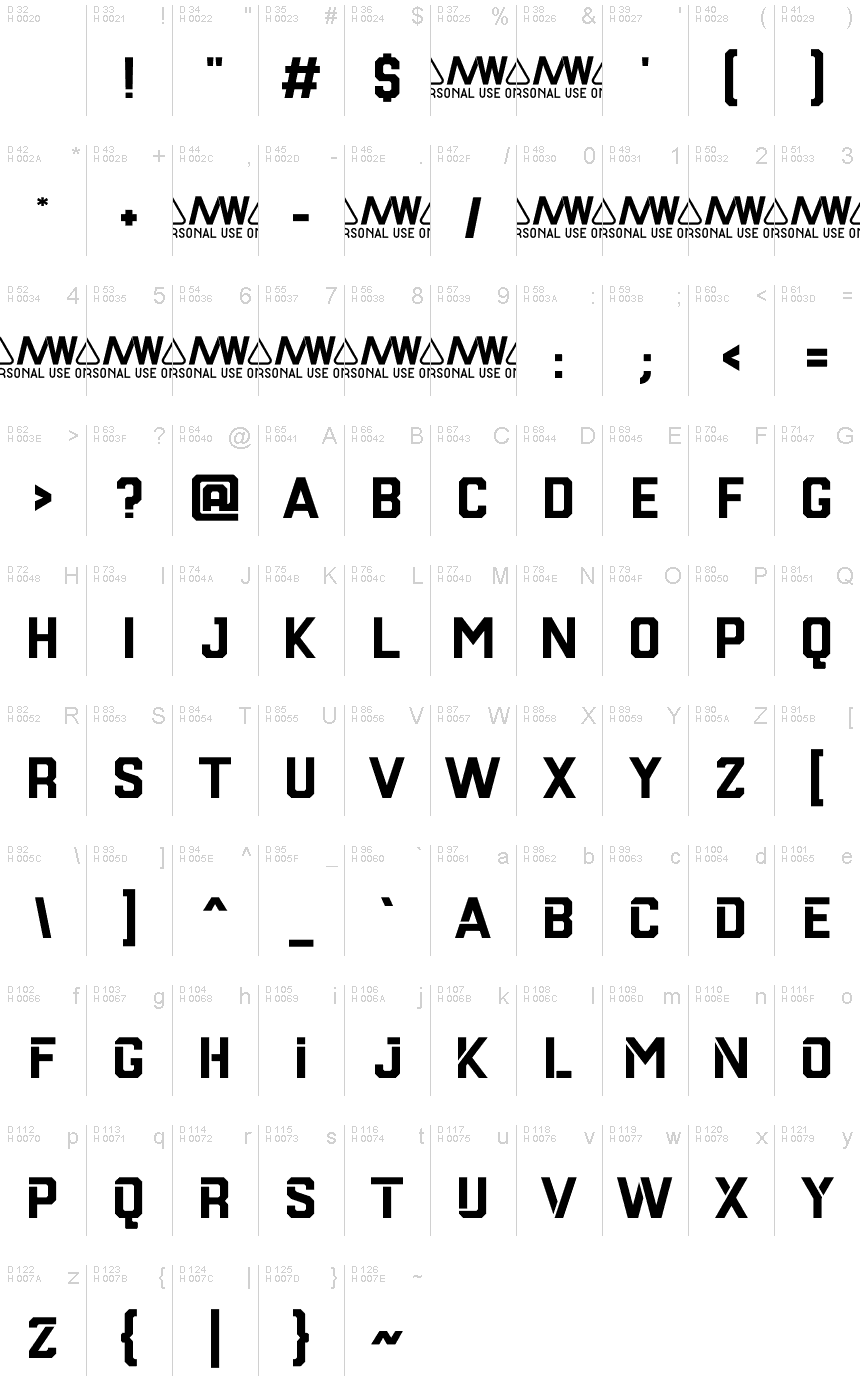
Sport Time is an old school sport display font created by
wynermax@gmail.com It's perfect for sports-related projects such as team logos, t-shirt designs, and vintage posters. Its unique style will add a touch of nostalgia to any project!